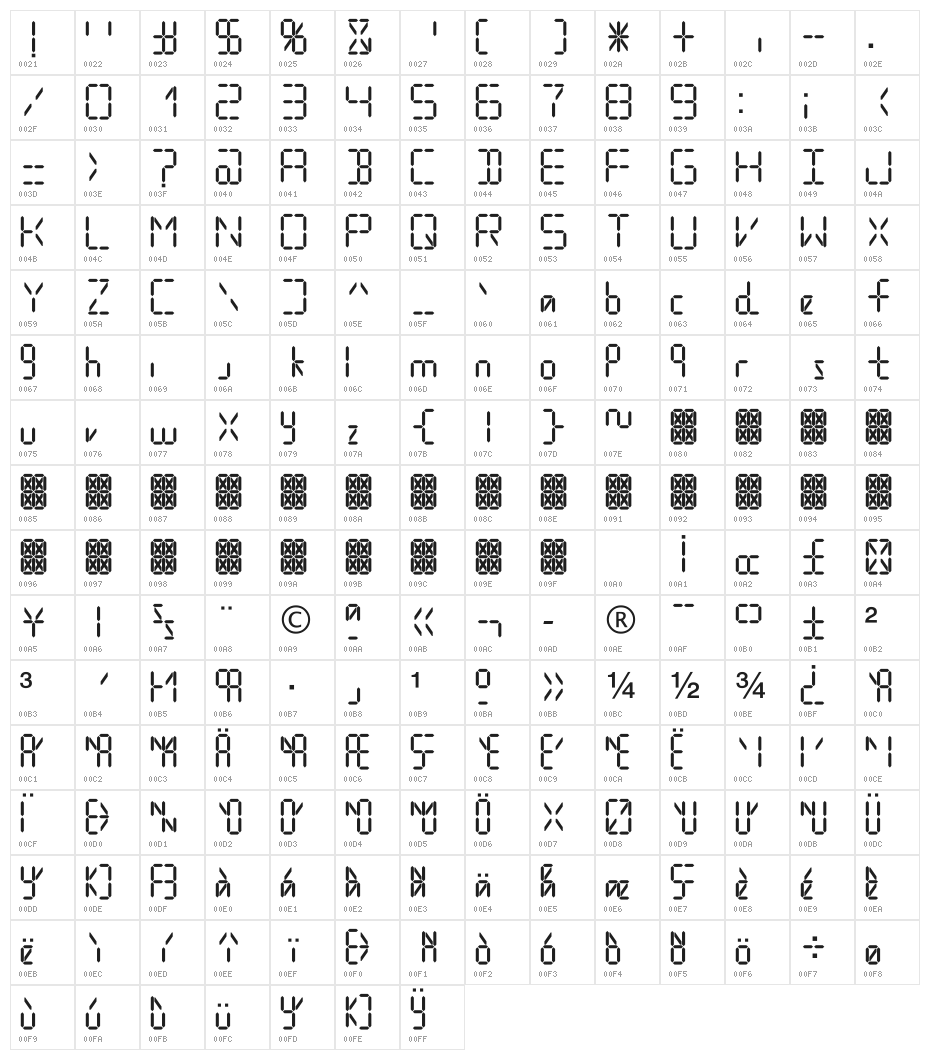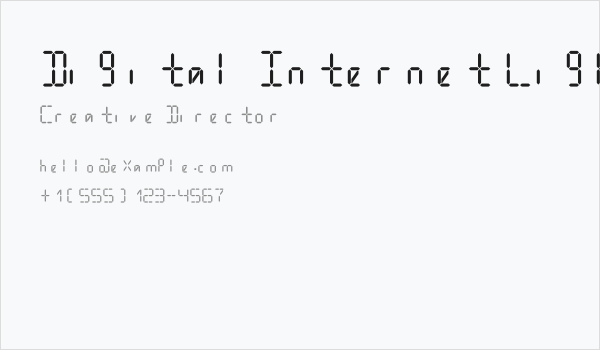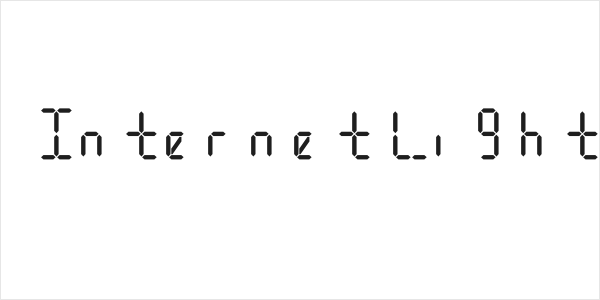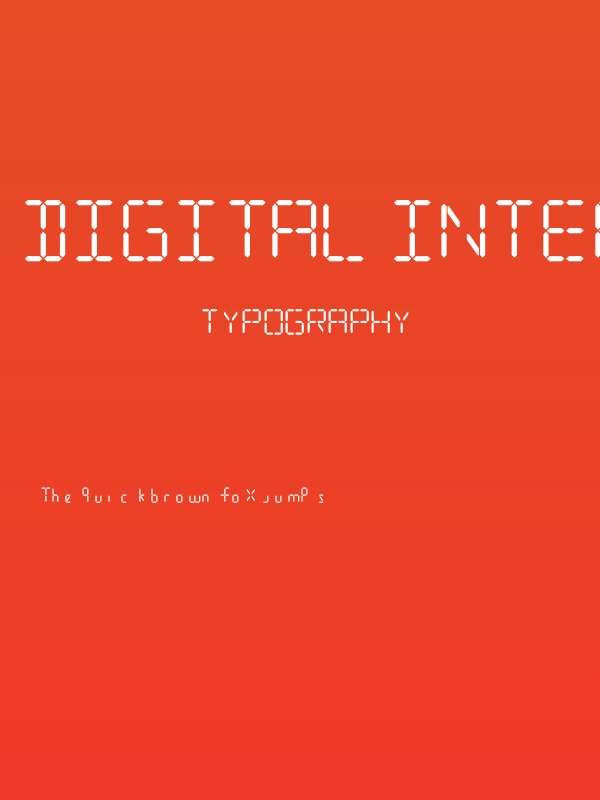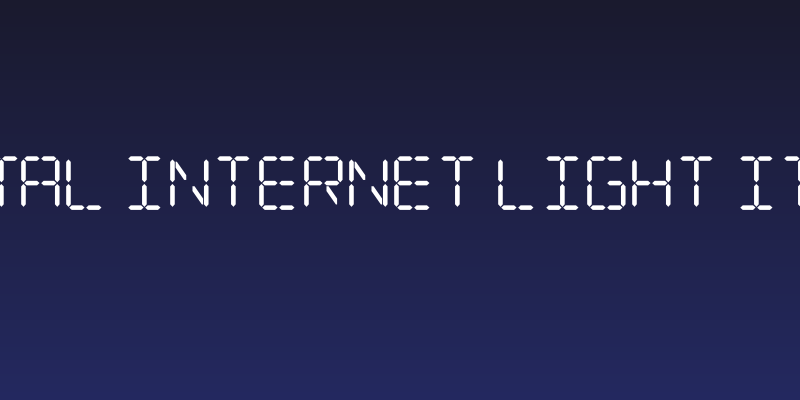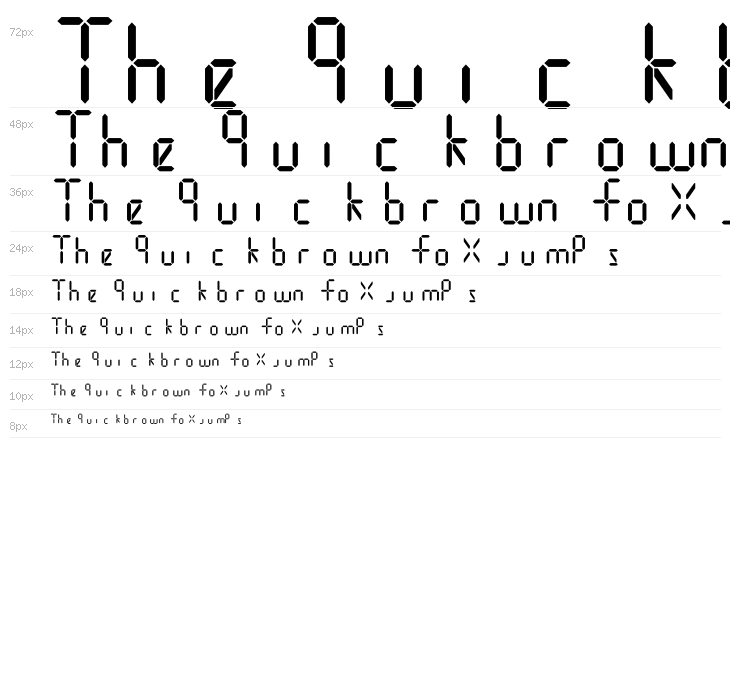
Digital Internet Light Italic Font
Digital Internet Light Italic Description
This font features a digital, segmented style reminiscent of LED displays or digital clocks. Each character is constructed using a series of straight lines and angles, giving it a distinctly modern and technological appearance. The uppercase and lowercase letters, as well as numbers, maintain a consistent geometric form, enhancing readability while preserving the digital aesthetic. The font's unique style is further emphasized by its light weight and italic slant, which adds a dynamic and futuristic touch. Special characters are also designed in the same segmented manner, ensuring uniformity across all glyphs.
| Use Case | Headlines, Logos, Digital displays |
| Proposed Projects | Ideal for digital displays, tech-themed designs, futuristic branding, and electronic interfaces. |